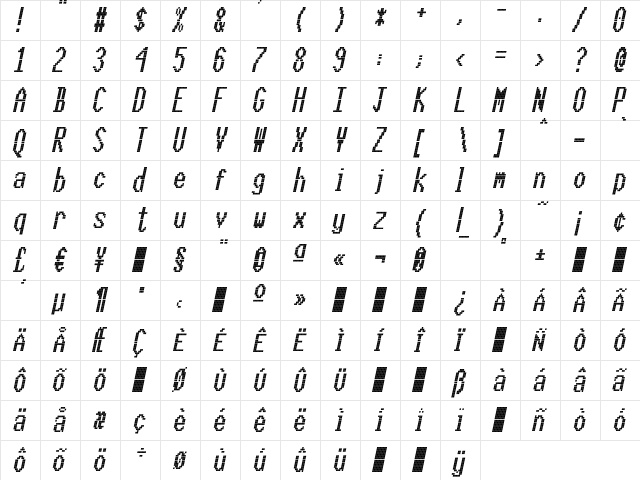
CallFourL-Italic Regular
Design Context for CallFourL-Italic Typeface
CallFourL-Italic takes a measured approach to typography — its balanced proportions and neutral character make it a reliable workhorse for both digital and print work. The slanted form adds forward momentum and visual energy.
Pro Tip: Use CallFourL-Italic for emphasis, pull quotes, and subheadings where its slanted energy can add rhythm to the layout.